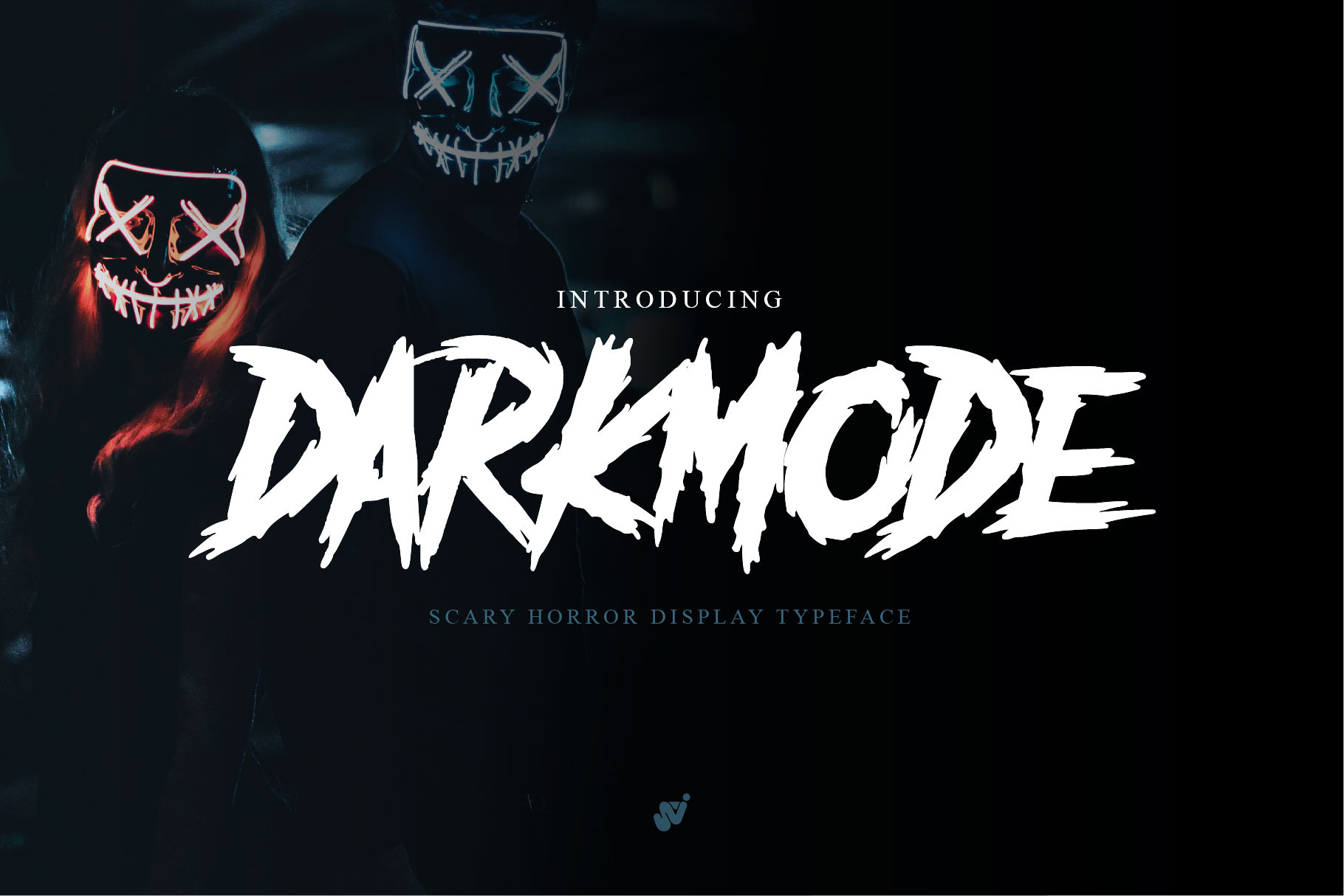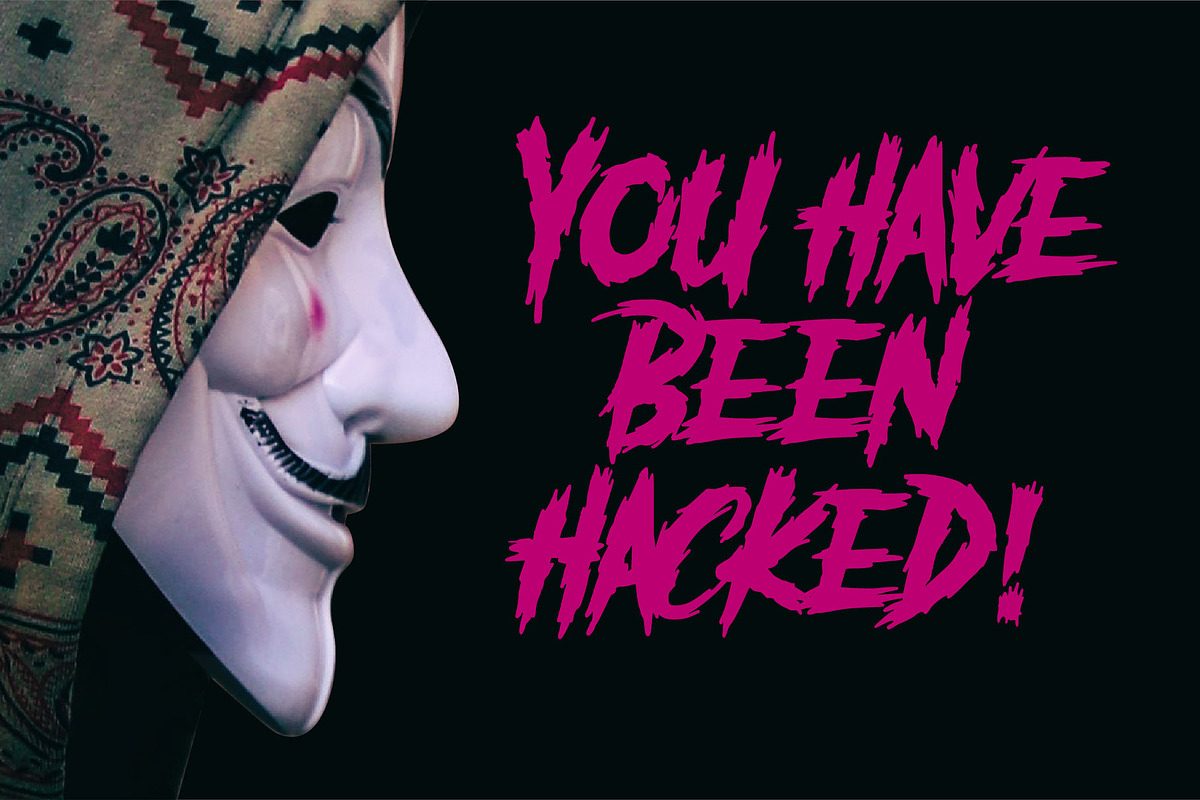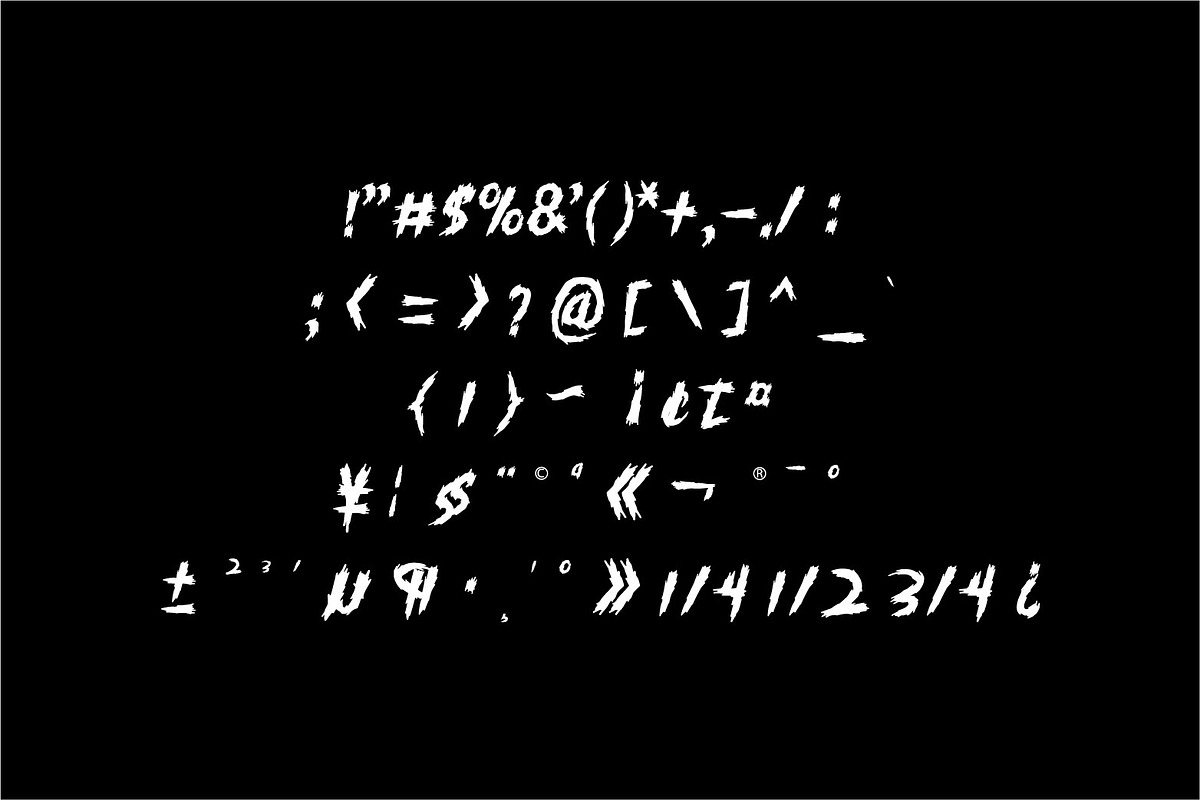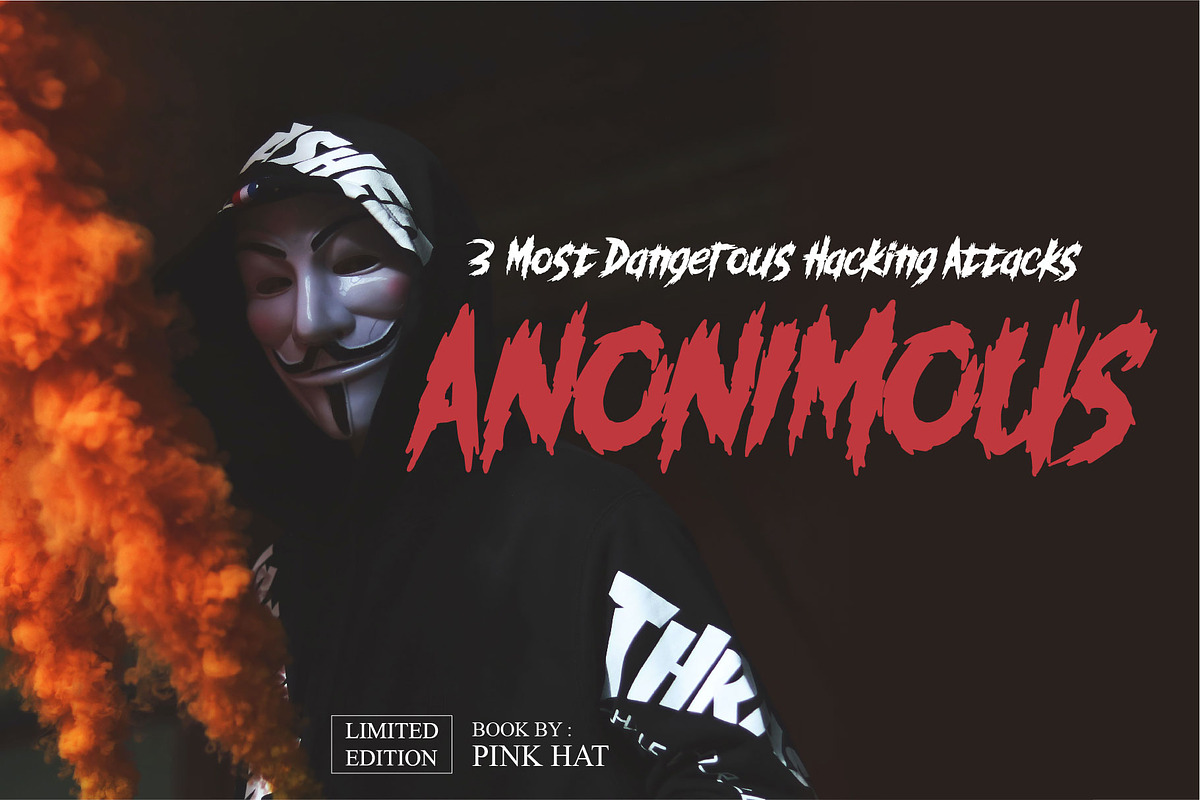
Darkmode – Horror Gothic Typeface
Darkmode was inspired from gothic, scary, protest, and horror nuance. Combine with hand drawn brush who make the typeface looks very instant and messy.
Uses for film, quotes, cover book, title, cover album, logo, clothing, invitation, event, labels, poster, etc.